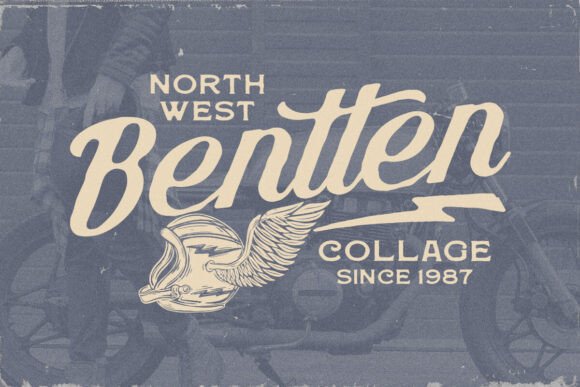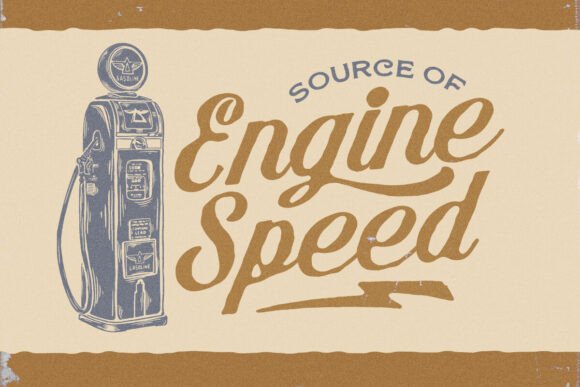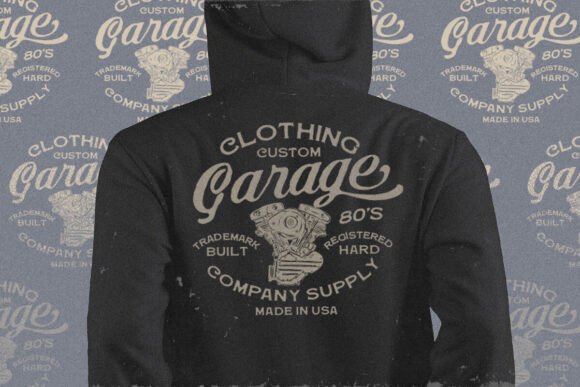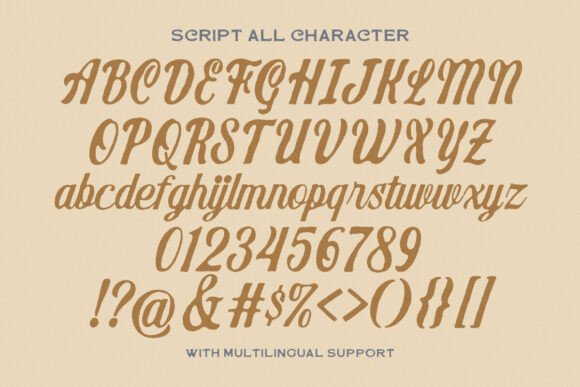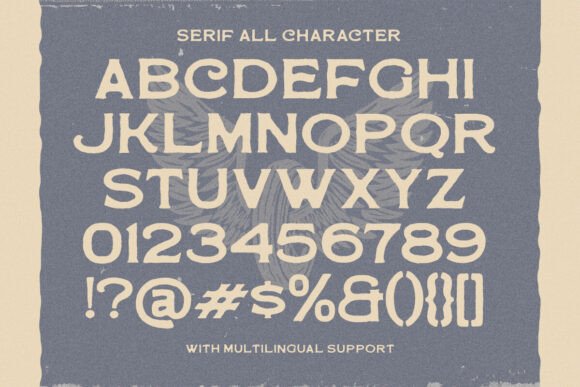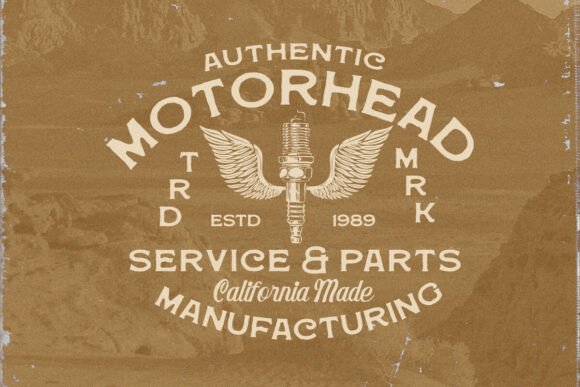
Drapers Canterbury Font: Elevate Your Designs with a Bold and Vintage-Inspired Duo
Are you tired of using the same old fonts in your designs? Look no further than Drapers Canterbury, a bold and vintage-inspired duo font collection that’s sure to bring a rugged yet elegant touch to your projects. This hand-drawn typeface combines the strength of serif fonts with the classic charm of script fonts, making it perfect for a wide range of design applications.
A Unique Font Collection for Designers and Crafters
Drapers Canterbury is not just a font, but a duo font collection that offers two unique styles to suit your design needs. The bold serif font is perfect for headlines, titles, and emphasis, while the classic script font adds a touch of elegance and sophistication to your designs. Whether you’re a designer, crafter, or DIY enthusiast, this font collection is sure to inspire your creativity.
Key Features of Drapers Canterbury Font
- Bold and Vintage-Inspired Design: Drapers Canterbury features a bold and vintage-inspired design that’s perfect for creating eye-catching headlines, titles, and logos.
- Hand-Drawn Typeface: This font collection is carefully hand-drawn to ensure a unique and authentic look that’s perfect for designs that require a personal touch.
- Mix of Strong Serif and Classic Script: The duo font collection combines the strength of serif fonts with the classic charm of script fonts, making it perfect for a wide range of design applications.
- Perfect for Branding, Logos, Apparel, Posters, and Packaging: Drapers Canterbury is versatile enough to be used in a variety of design projects, from branding and logos to apparel, posters, and packaging.
Why Choose Drapers Canterbury Font?
So why choose Drapers Canterbury font for your designs? Here are just a few reasons:
- Stand Out from the Crowd: With its bold and vintage-inspired design, Drapers Canterbury font is sure to make your designs stand out from the crowd.
- Add a Touch of Elegance: The classic script font adds a touch of elegance and sophistication to your designs, making it perfect for high-end branding and luxury products.
- Easy to Read: Despite its bold design, Drapers Canterbury font is easy to read, making it perfect for body text and captions.
- Highly Versatile: This font collection is highly versatile and can be used in a wide range of design applications, from print to digital.
How to Use Drapers Canterbury Font
Using Drapers Canterbury font is easy. Here are a few tips to get you started:
- Pair the Bold Serif Font with the Classic Script Font: Pair the bold serif font with the classic script font to create visually appealing headings and body text.
- Use for Headlines and Titles: Use the bold serif font for headlines and titles to add emphasis and create visual interest.
- Add a Personal Touch: Use the classic script font to add a personal touch to your designs, such as in signatures, testimonials, or quotes.
Drapers Canterbury font is a bold and vintage-inspired duo font collection that’s perfect for designers, crafters, and DIY enthusiasts. With its unique mix of strong serif and classic script, this hand-drawn typeface is sure to bring a rugged yet elegant touch to your designs. Whether you’re creating branding, logos, apparel, posters, or packaging, Drapers Canterbury font is a versatile and highly effective choice.